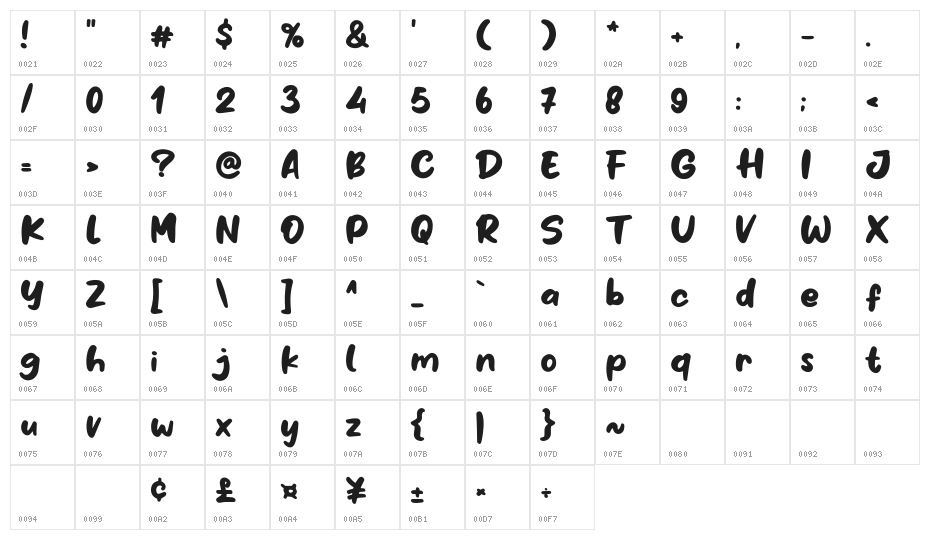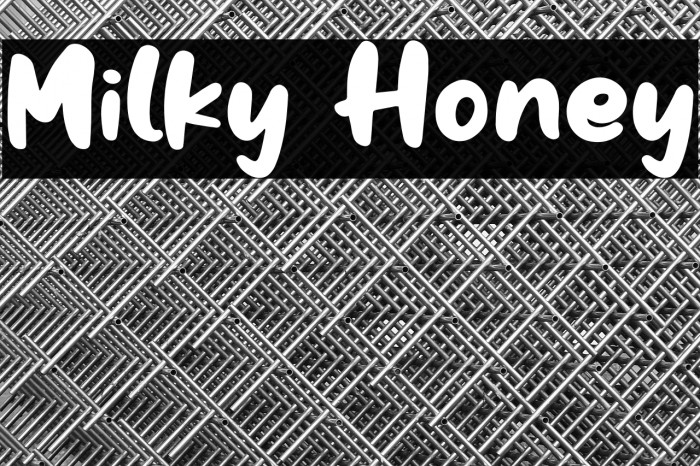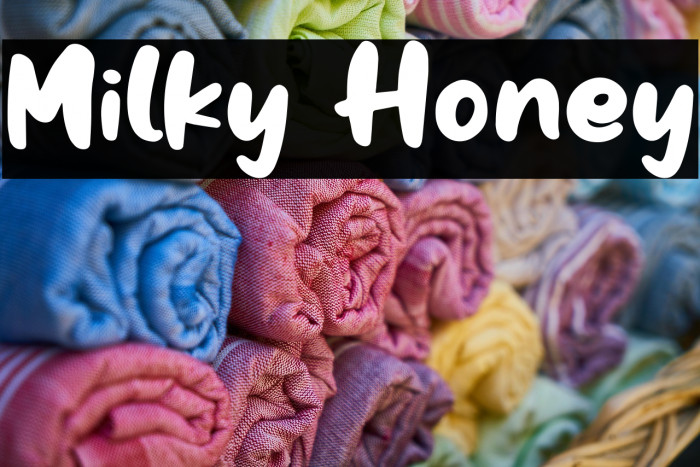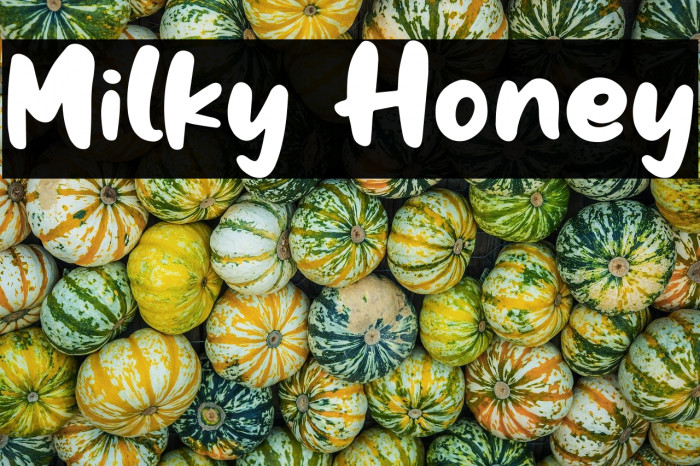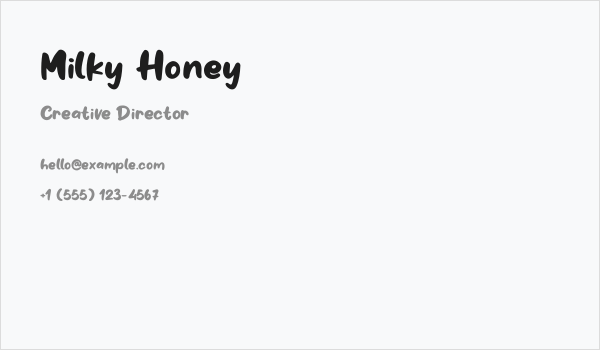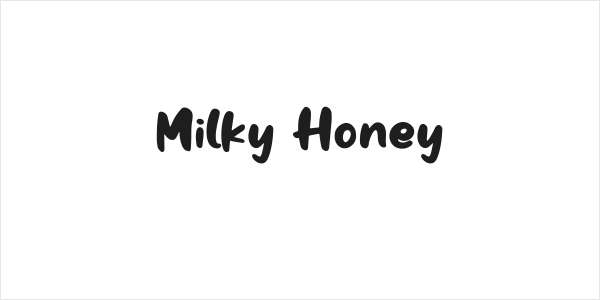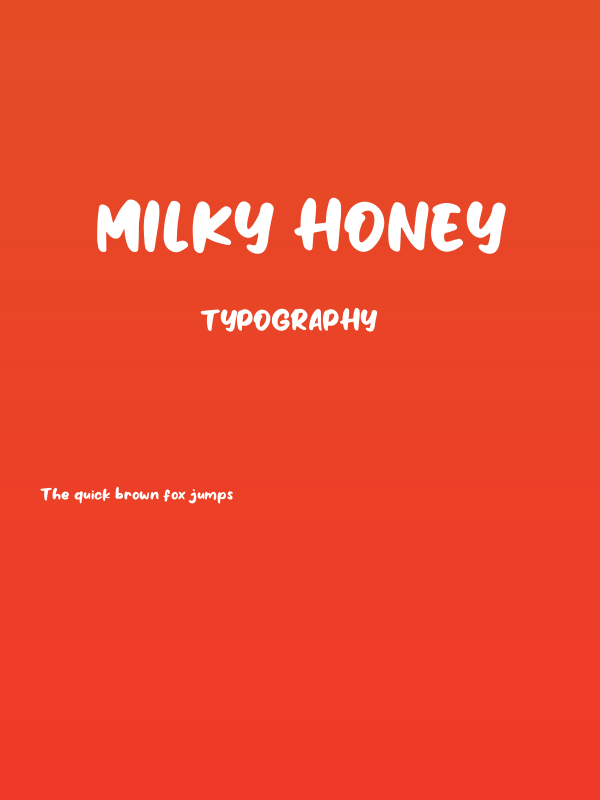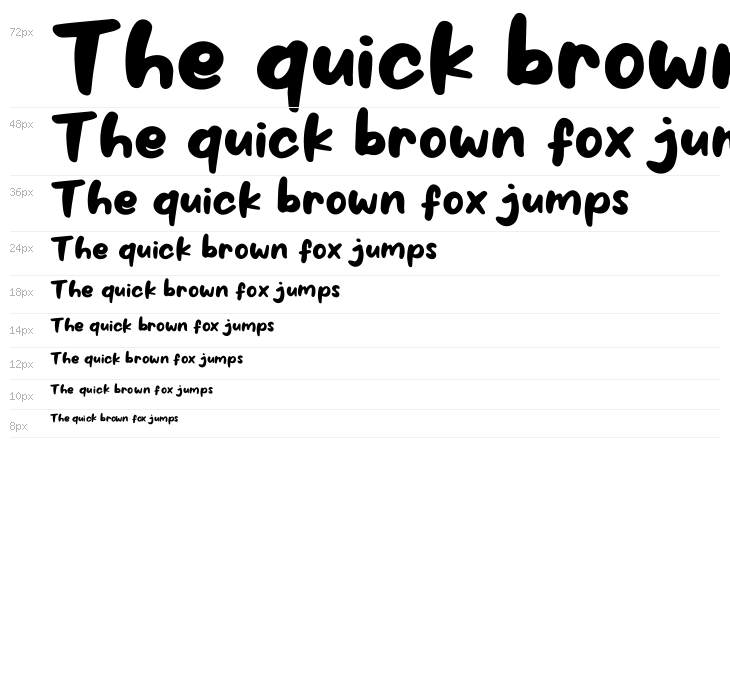
Milky Honey Font
Milky Honey Description
This playful and bold font features rounded, smooth edges and a hand-drawn aesthetic that exudes warmth and friendliness. The characters are thick and slightly irregular, giving them a whimsical and approachable feel. The uppercase and lowercase letters maintain a consistent style, with a slight slant that adds to the casual, informal vibe. The numerals and special characters are equally bold and rounded, ensuring a cohesive look across all text elements. This font's unique style makes it stand out, perfect for projects that require a touch of personality and charm.
| Proposed Projects | Ideal for children's books, playful branding, greeting cards, and casual social media graphics. |